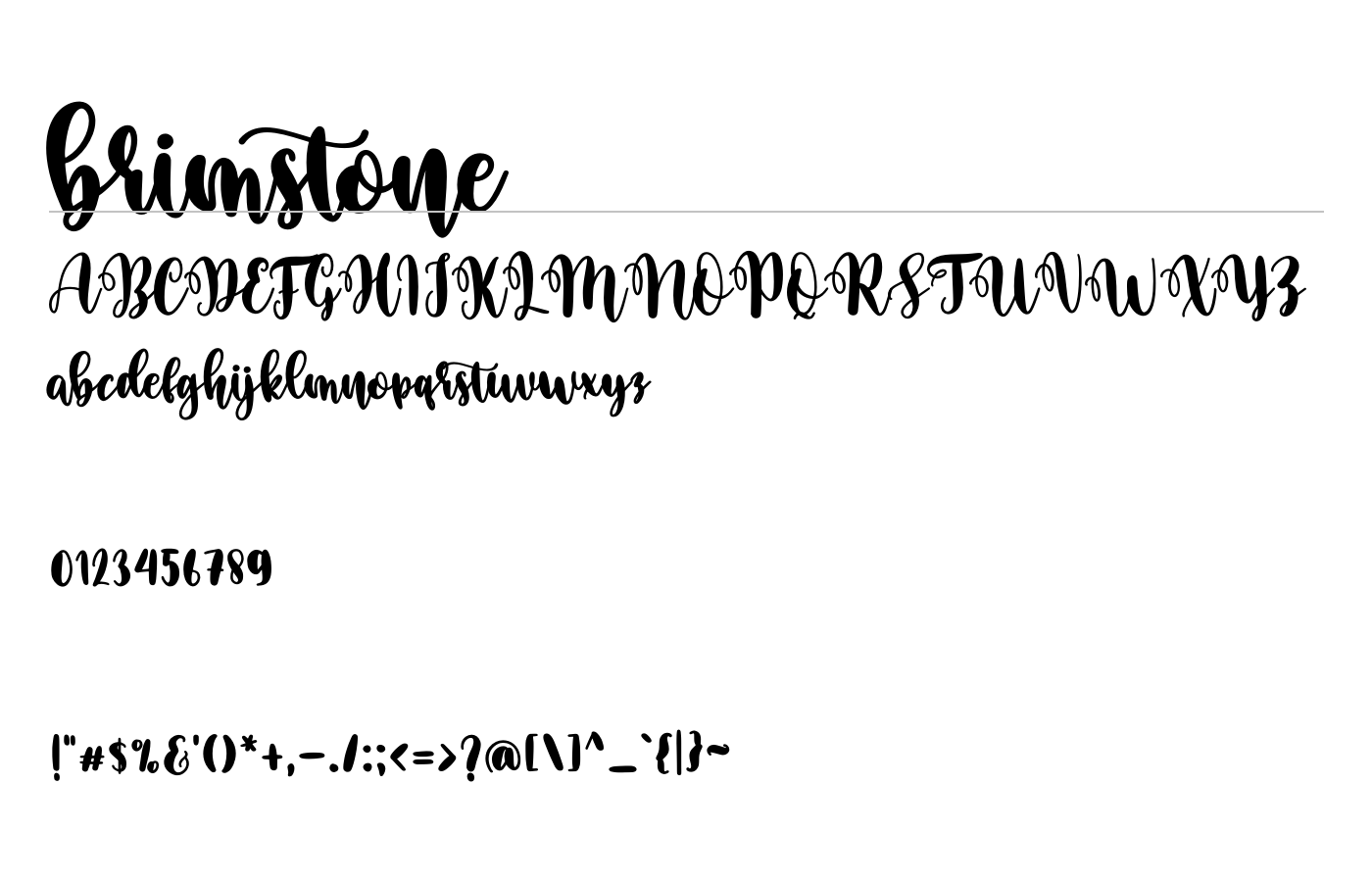
Brimstone is a lively and elegant script font featuring fluid, bold strokes with charming flourishes and a slightly condensed structure. Its playful yet refined style makes it ideal for creative branding, invitations, and headlines where a personal, handcrafted feel is desired. This font blends warmth and sophistication, adding a touch of artistic personality to any design project.
brimstone Font
About brimstone Font
| Font family | brimstone Font |
| Designer | dianhaniff |